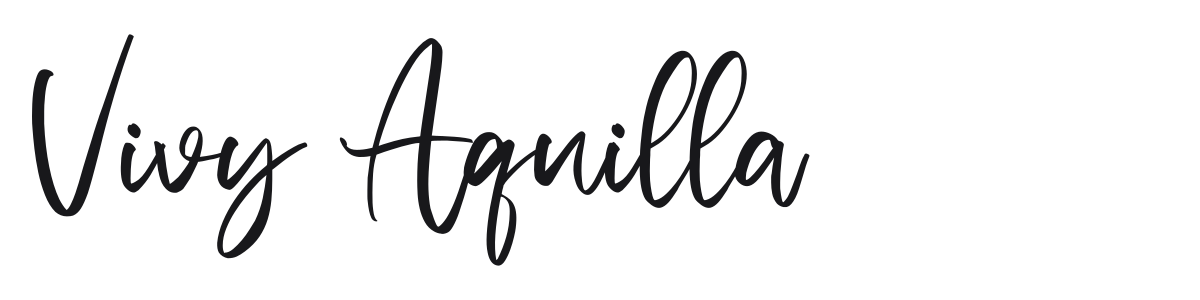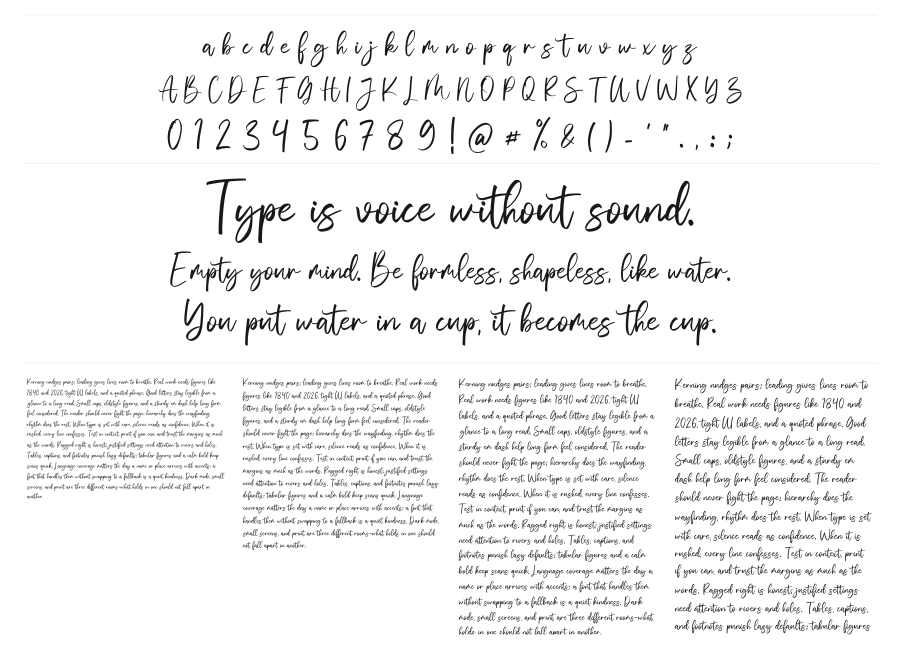
Vivy Aquilla
Vivy Aquilla is a casual connected script with a relaxed, pen-lettered warmth and flowing character joins. The looping ascenders and gently slanted baseline give it an organic, modern calligraphy feel without feeling stiff or overly formal. It works well at large sizes for wedding stationery, brand logos, and lifestyle packaging.